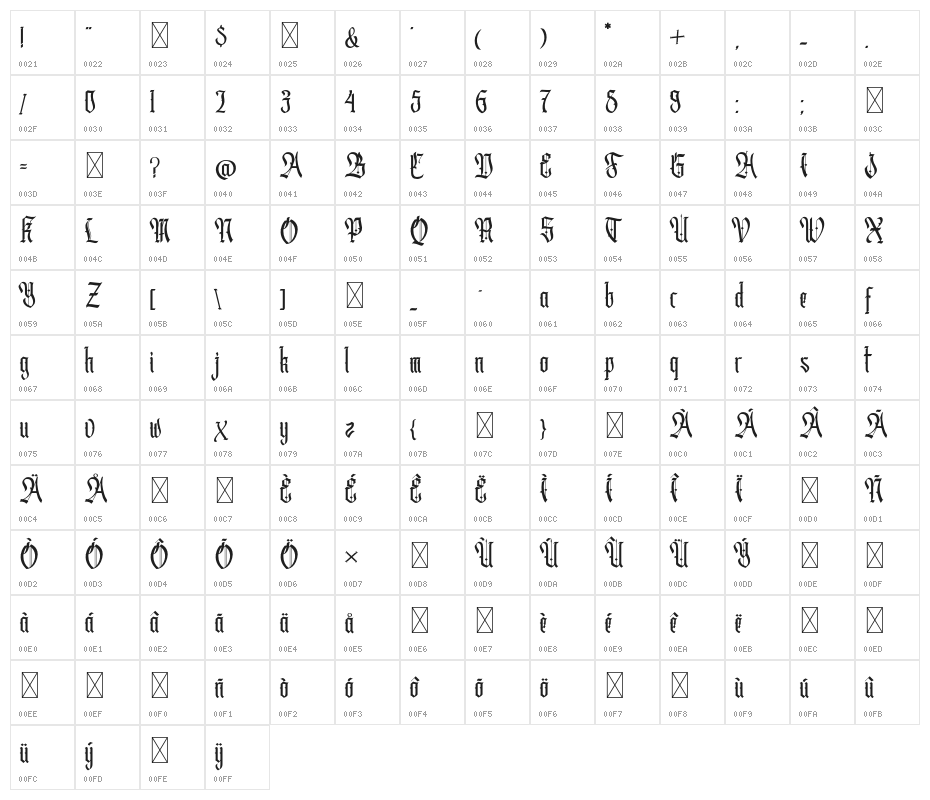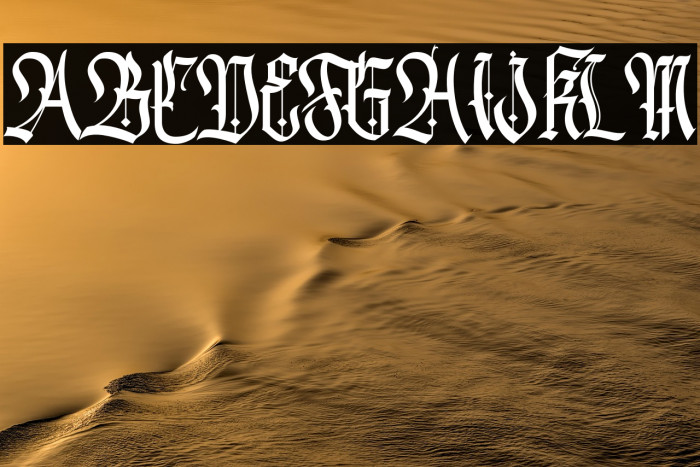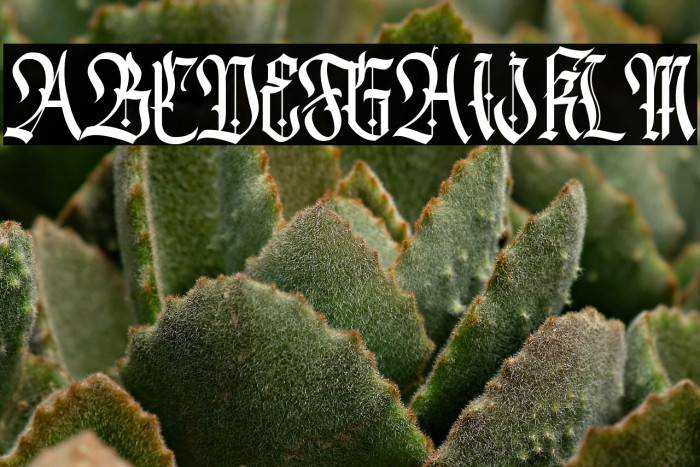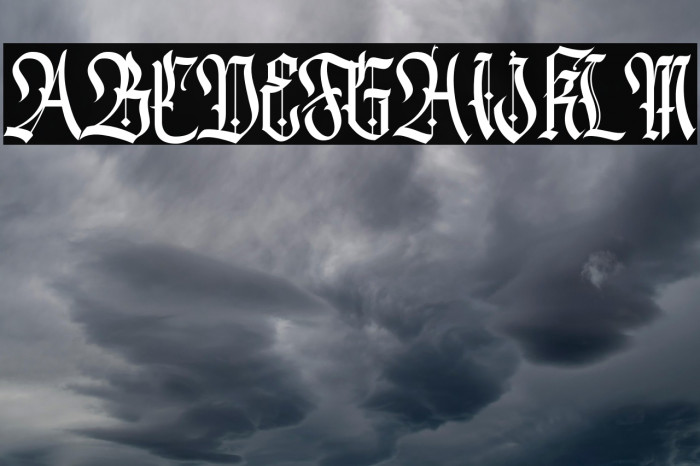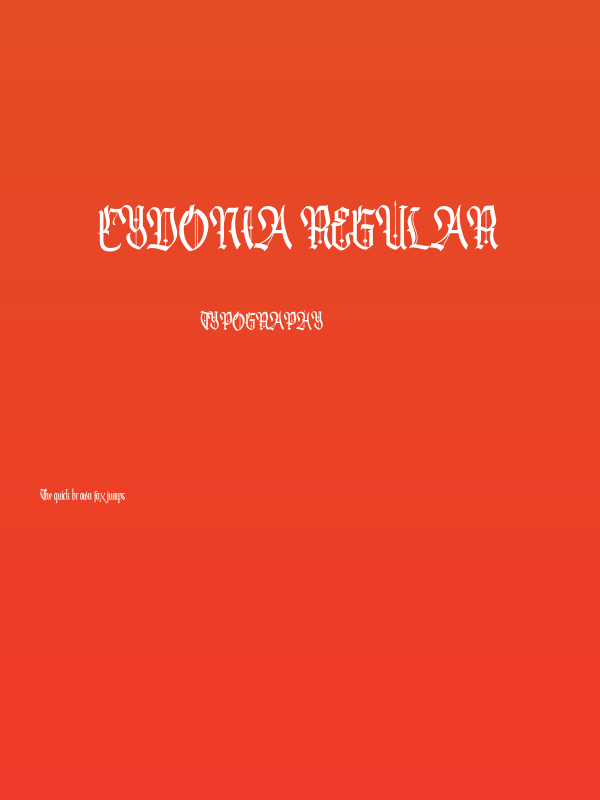
Cydonia Regular Font
Cydonia Regular Description
This font exhibits a classic blackletter style, characterized by its intricate and ornate design. The letters feature sharp, angular lines with a high degree of contrast between thick and thin strokes, typical of traditional Gothic scripts. The uppercase letters are particularly elaborate, with decorative flourishes that enhance their medieval appearance. The lowercase letters maintain the same stylistic elements but are slightly more restrained, ensuring readability. The numerals and special characters are consistent with the overall aesthetic, adding a touch of historical elegance. This font is ideal for projects that require a vintage or medieval touch, such as historical documents, themed event invitations, or branding for products that wish to convey a sense of tradition and craftsmanship.
| Proposed Projects | Ideal for historical documents, themed event invitations, or traditional branding. |